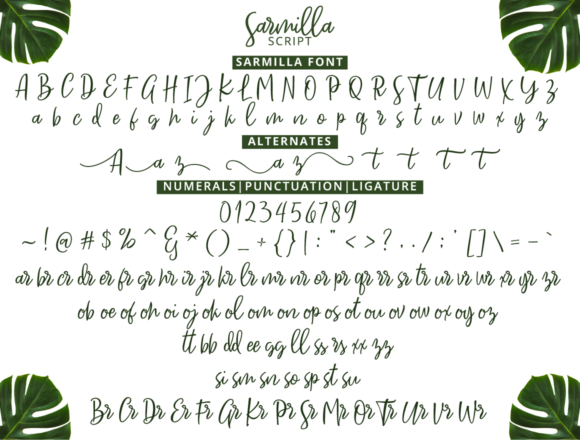
About Sarmilla Script Font
Sarmilla is a breath of fresh air in the world of script fonts. Crafted with a natural feel, it adds an elegant touch to your designs, making it a perfect choice for a variety of creative projects. Its versatility and inherent charm make it particularly well-suited for invitations, greeting cards, branding materials, business cards, quotes, posters, logos, and any other design that calls for a feminine and graceful touch.
The natural feel of Sarmilla sets it apart, creating an organic and authentic aesthetic. The handwritten script exudes a sense of warmth, making it an ideal choice for projects that aim to establish a personal and inviting connection with the audience.
Its elegance shines through in every stroke, giving your designs a refined and sophisticated appearance. Sarmilla’s ability to seamlessly adapt to various design applications allows it to elevate the visual appeal of invitations, adding a touch of grace to greeting cards, and providing a distinctive feminine flair to logos and branding materials.
Whether applied to digital or print media, Sarmilla’s fresh and elegant script brings a harmonious balance of style and readability. Its suitability for quotes and posters further showcases its ability to convey messages with both beauty and clarity, making it a versatile tool for designers seeking a script font that exudes femininity and sophistication.
In summary, Sarmilla is more than just a font; it’s a design asset that adds a natural, elegant, and feminine touch to your creative endeavors. Its versatility makes it an excellent choice for a range of projects, where its fresh handwritten script contributes to the creation of visually appealing and inviting designs.